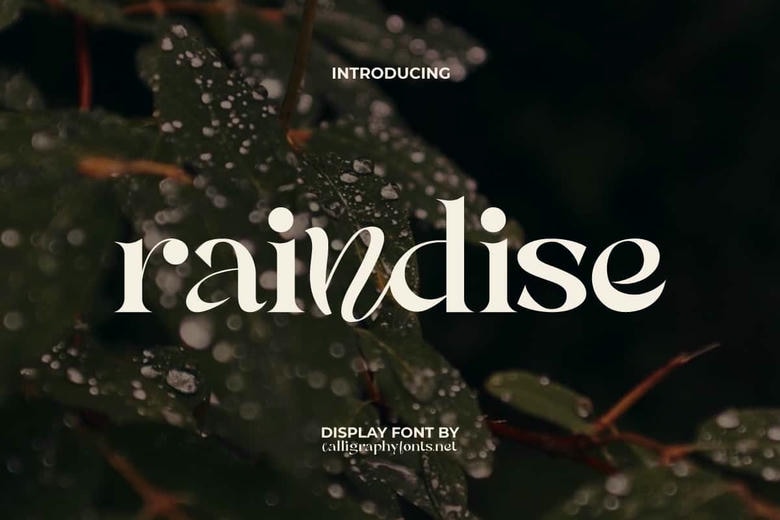
Raindise Font
Raindise is an elegant and timeless display font inspired by the charm of vintage typography that has been modernized. It feels different from the usual because all the characters are displayed in lowercase with a slightly different mix of styles. Perfect for craft, corporate, fashion, graphic design, home designer, home furniture, photography, retail soap, and much more.
Raindise craves for the purist traditional design displays with a minimalist touch. Perfect to accommodate any design requirement, it enhances the prospects of achieving a stunning appearance naturally. This font can be used in any of the app designs, blog, body text, brochure, business card, carving items, greeting card, headers, logo, mockup, packaging design, quotes, template, title, websites, and many more.
Raindise has all the basic upper and lower cases with different appearances, numbers, and range of punctuation and symbols as well as ligatures. It is provided with multi language character compatibility and can be run on windows as well as mac machines with some basic installations.
Raindise Serif Font